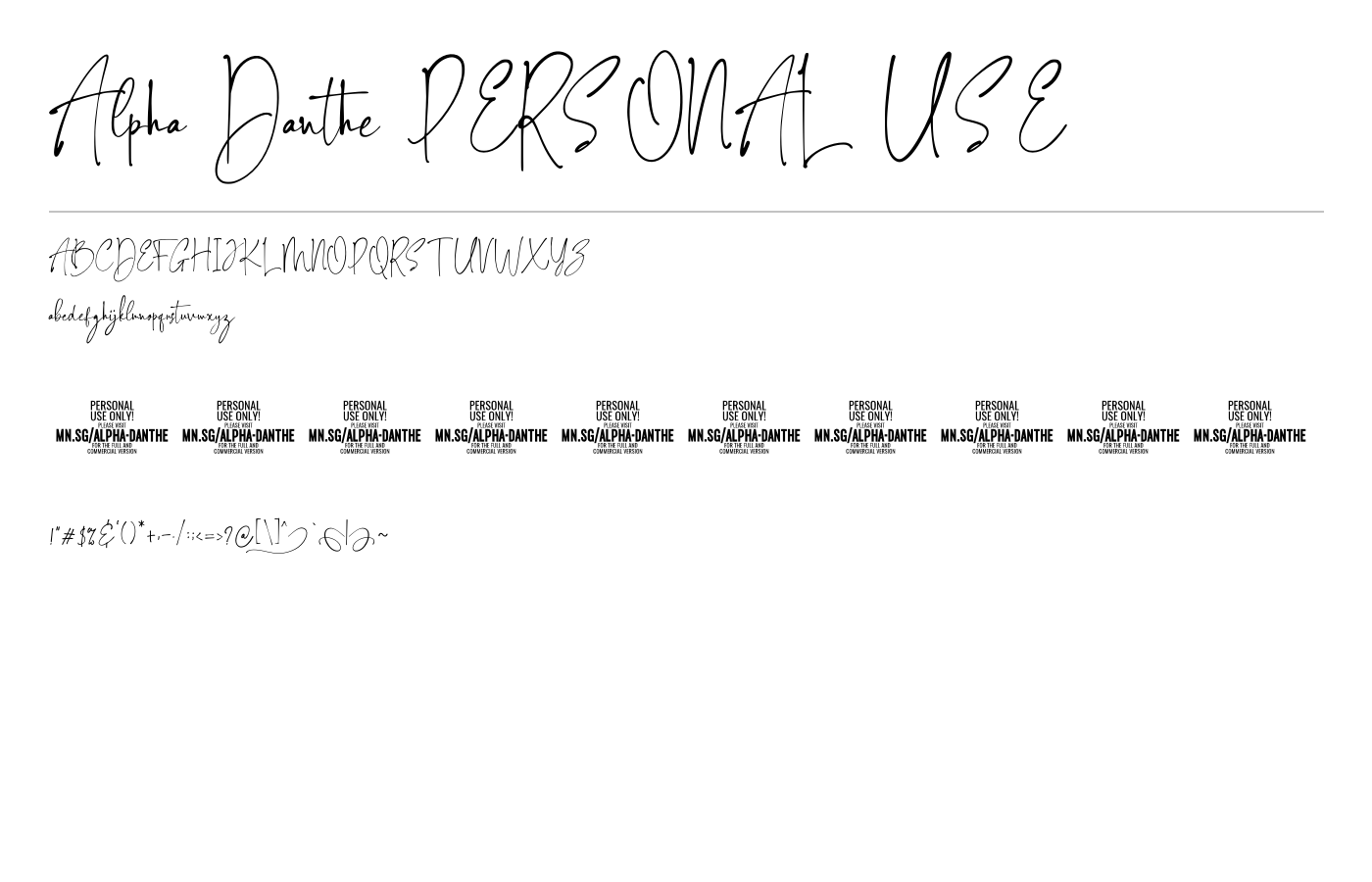
Alpha Danthe PERSONAL USE is a delicate, handwritten script font with an airy, elegant feel. Its thin, flowing strokes and tall, slightly irregular letterforms give it a whimsical and personal touch, making it perfect for creative projects, invitations, and branding that aim for a sophisticated yet approachable style. This font works best in headlines, logos, or decorative text where a unique, artistic flair is desired.
Alpha Danthe PERSONAL USE Font
About Alpha Danthe PERSONAL USE Font